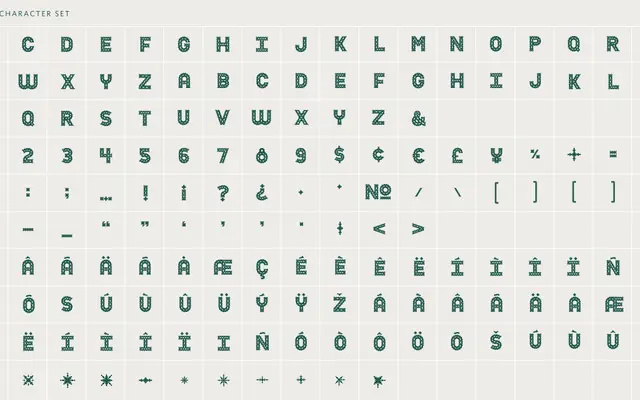
Snowflake
Jessica Hische · Jessica Hische
A cut-paper snowflake-inspired display typeface with a full character set and ornamental glyphs suited to borders and patterns.
Built around the aesthetic of cut paper snowflakes, this display typeface includes a full Latin alphabet, numerals, accented characters, punctuation and a set of snowflake ornaments for borders or repeat patterns. The letterforms share visual kinship with crochet work and papel picado, giving it range beyond purely seasonal use. It appeared on Wilco's Cruel Country album artwork.
A display typeface built around cut paper snowflake forms, with ornamental characters included alongside the full alphabet. Its highly decorative, craft-derived construction places it firmly in the decorative display category.